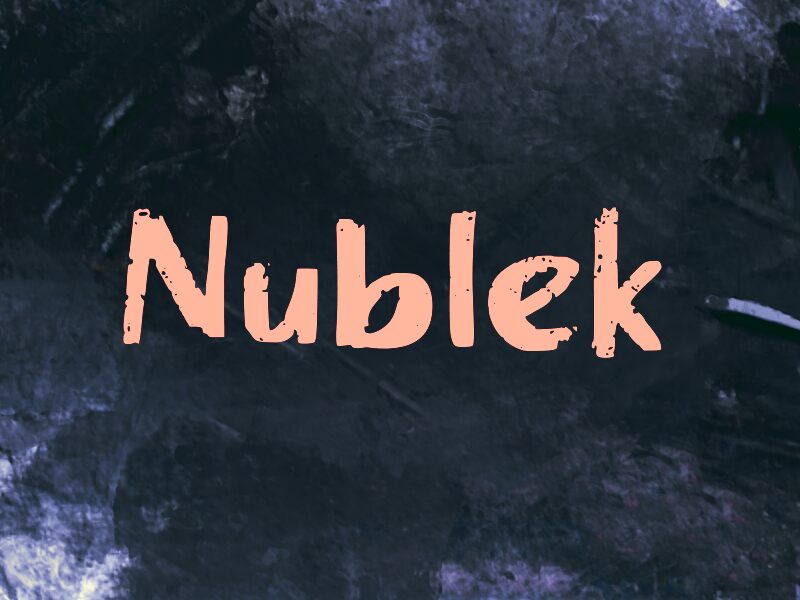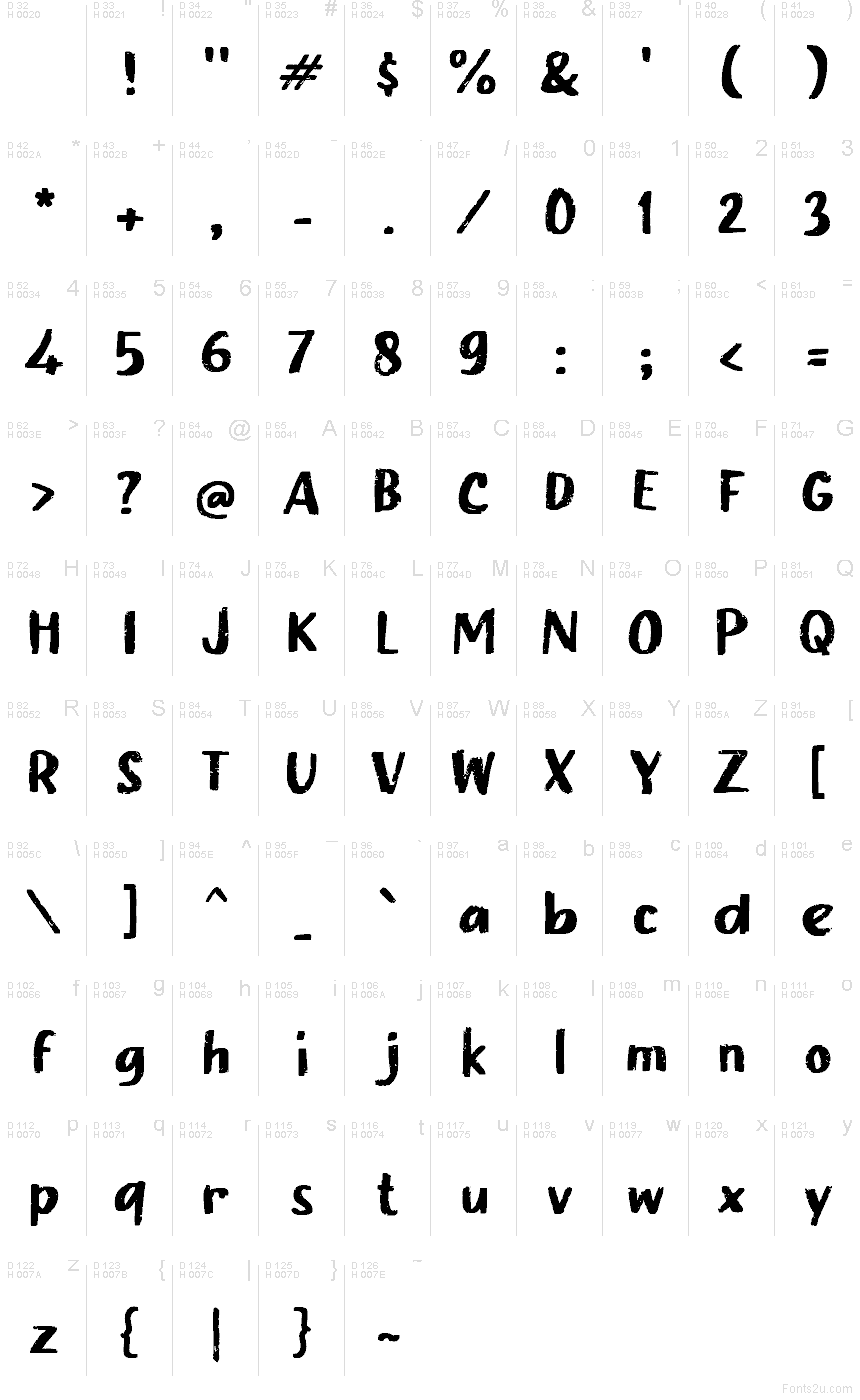
Nublek
Nublek font by wepfont.com is a free brush typeface with a thick, inky texture that feels like it was slammed onto the page with a paint-loaded marker. The letters are bold and chunky, but the rough, splattered edges keep them wild and handmade, as if the strokes are still drying. That mix of weight and grit gives Nublek a loud, streetwise energy without losing legibility.
Using Nublek, you get a raw, expressive look that shines on gig posters, grunge album covers, YouTube thumbnails, skate or urban brand logos, sticker packs, and bold social graphics. This free font loves big sizes where its speckled edges and uneven rhythm can really show. Pair it with a clean, light sans-serif for body text to keep layouts readable while Nublek does the shouting.